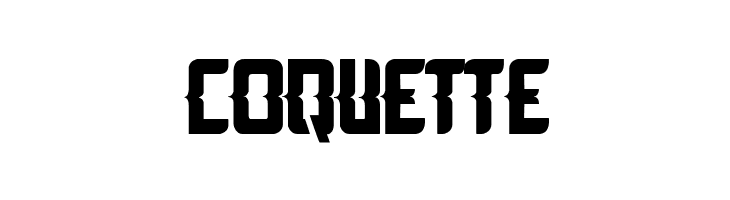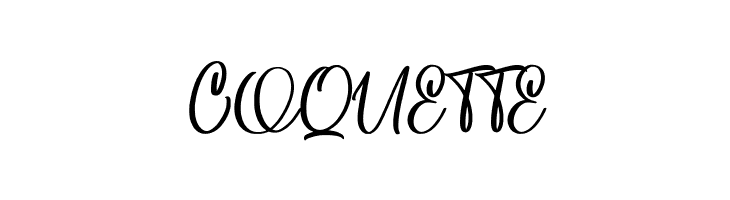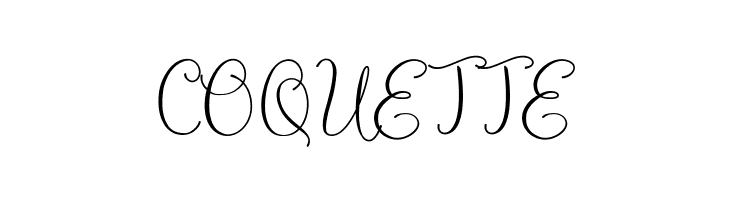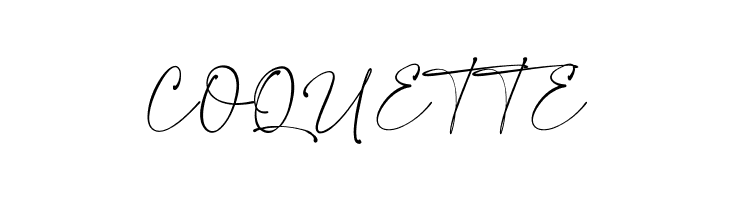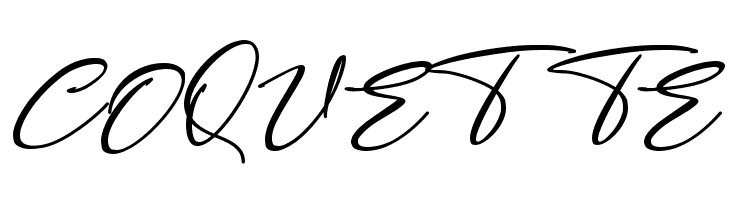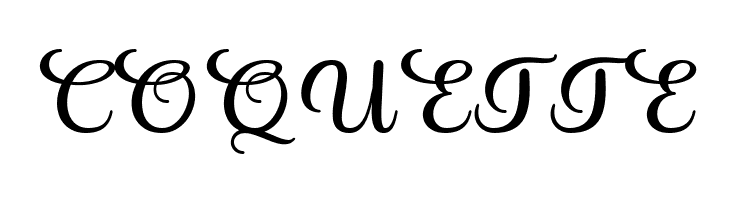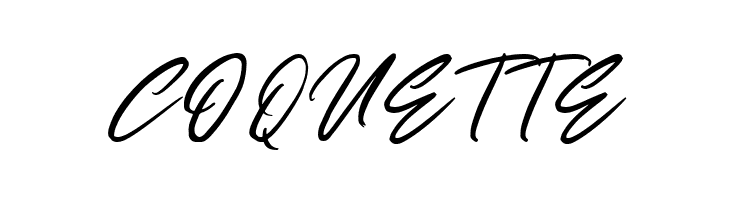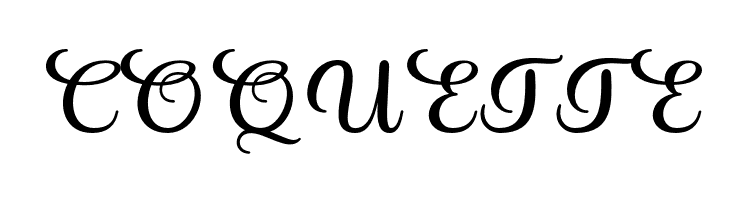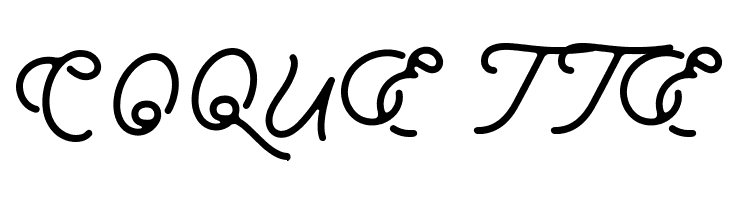
A bold, playful font with thick, rounded strokes and a whimsical style.
A fluid, cursive font with a handwritten style and elegant connections.
A flowing, cursive font with elegant, interconnected characters.
A graceful script font with elegant loops and swashes, perfect for decorative use.
A dynamic and flowing script font with elegant, cursive letterforms.
A dynamic, expressive handwritten font with fluid, connected strokes.
A graceful and elegant script font with flowing cursive letters.
A cursive font with elegant loops and swashes, perfect for artistic and sophisticated designs.
A dynamic and elegant script font with flowing, cursive letterforms.